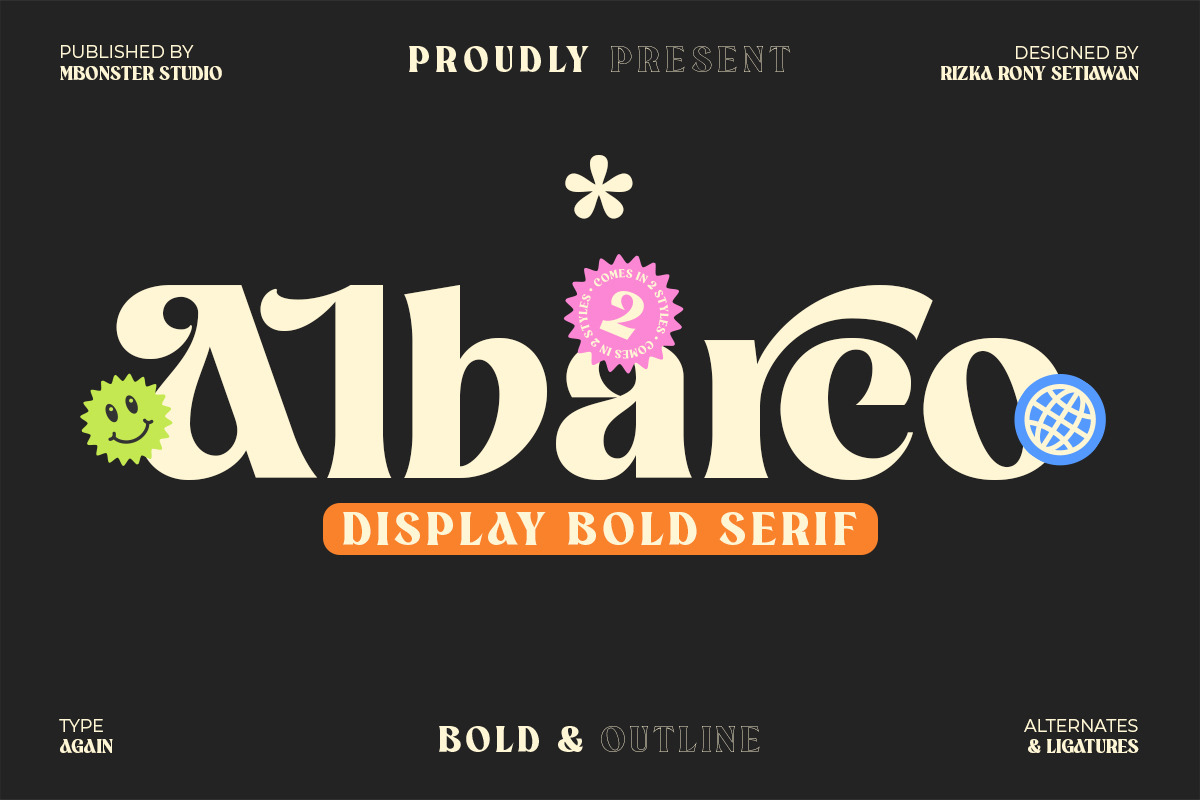
Albarco Bold Serif Font
Introducing Albarco Display Bold Serif Font
Albarco is a bold serif font that blends classic style with a modern twist. Designed with meticulous attention to detail, this font is perfect for magazine titles, logotypes, and bold headlines. Its strong and characterful style also suits posters, luxury branding, exclusive packaging, and advertisements that seek an elegant yet contemporary feel. Albarco is ready to make your message stand out with a fresh take on classic sophistication. Create designs that captivate with Albarco – the perfect choice for those who want to make a statement.